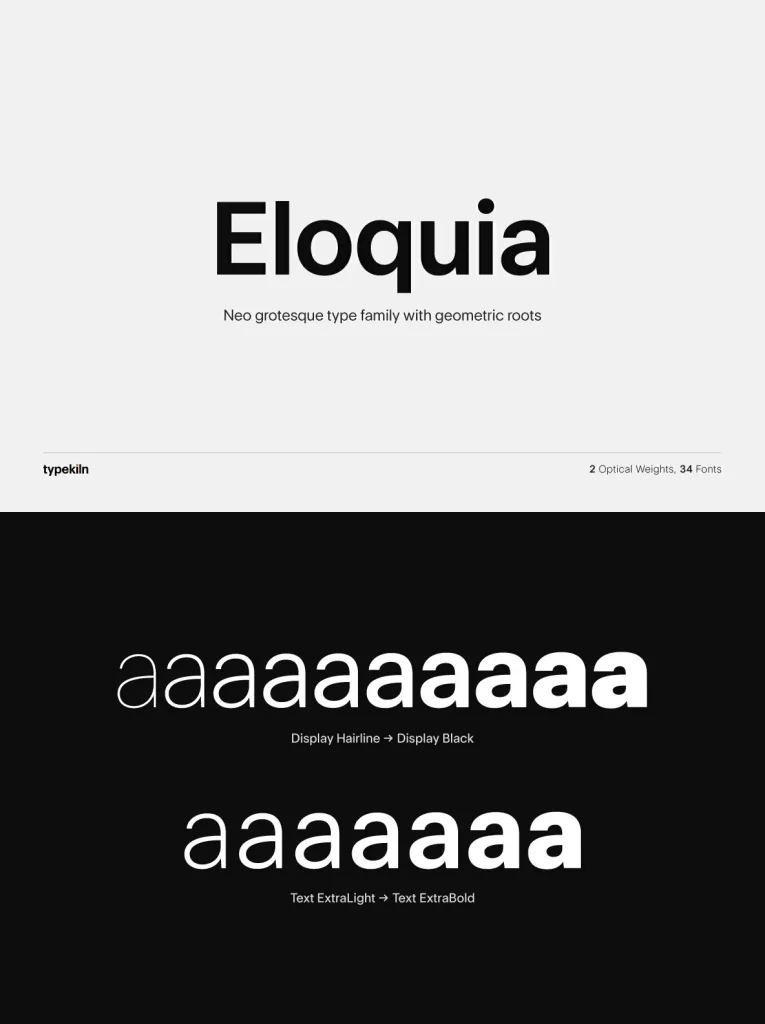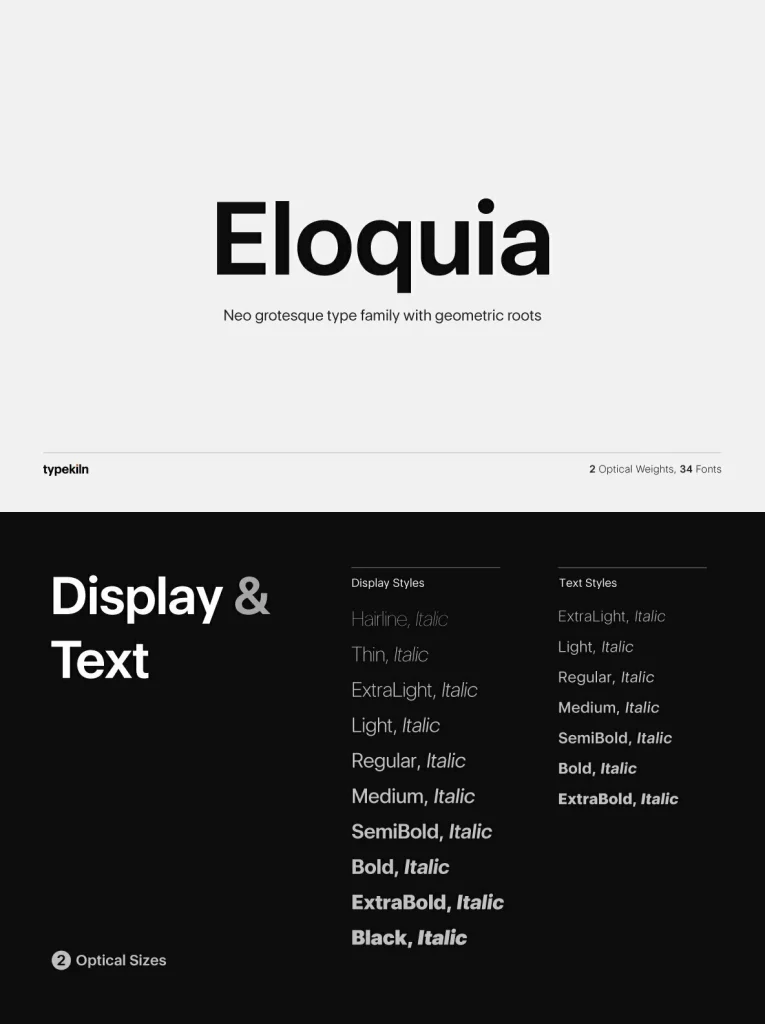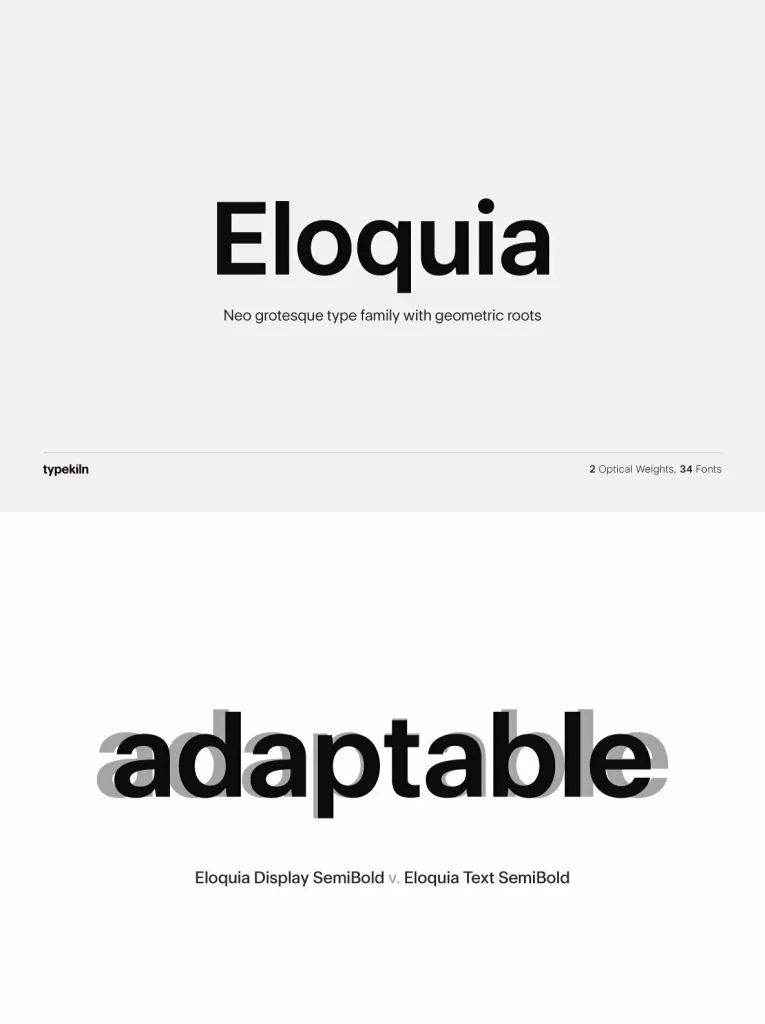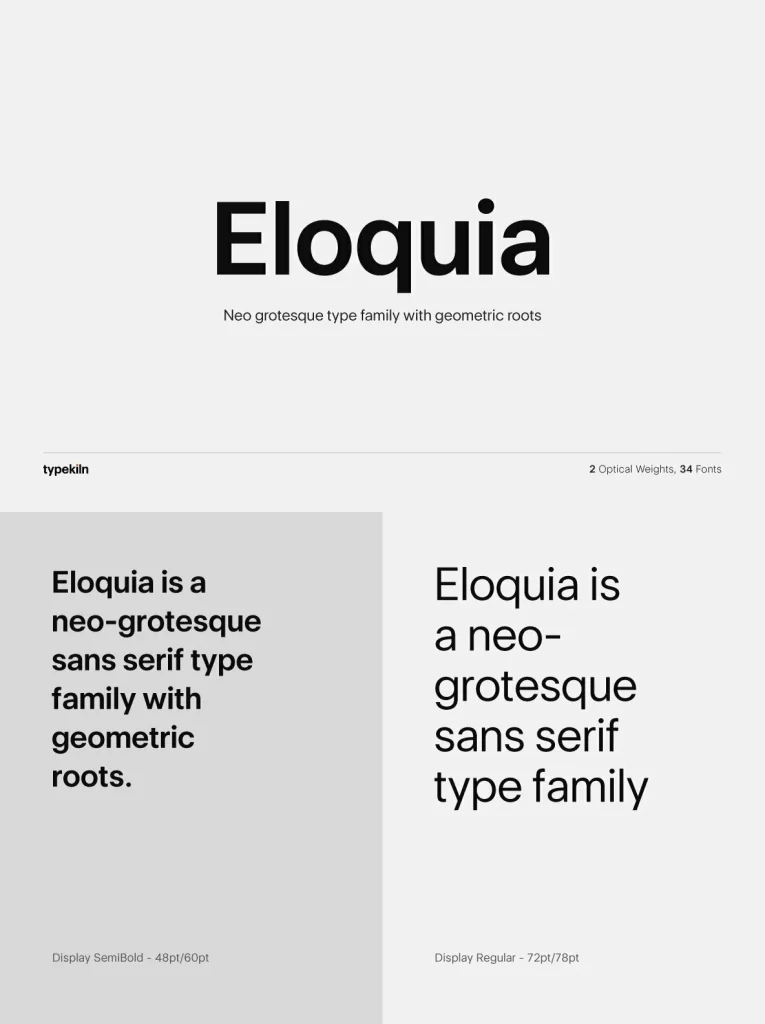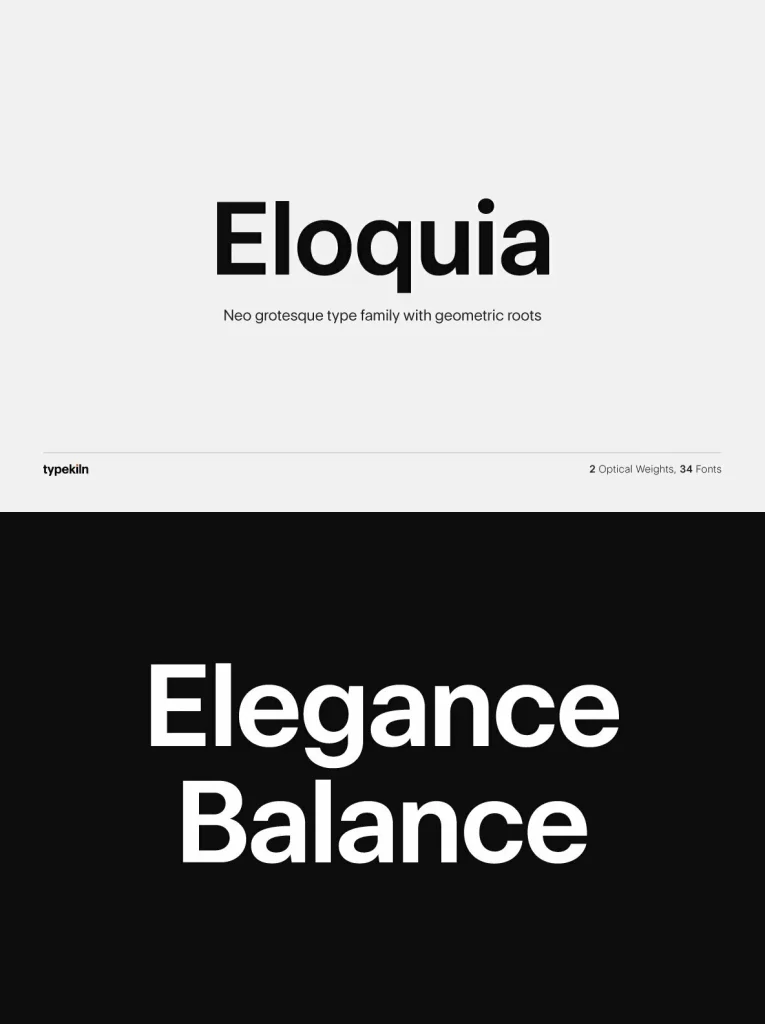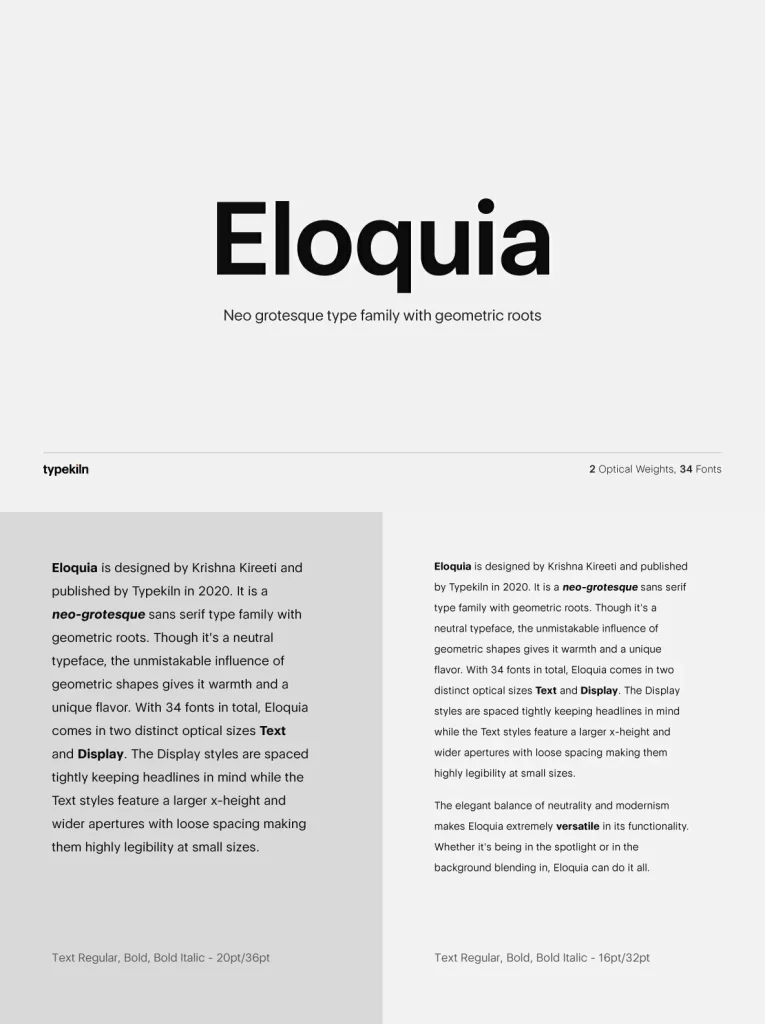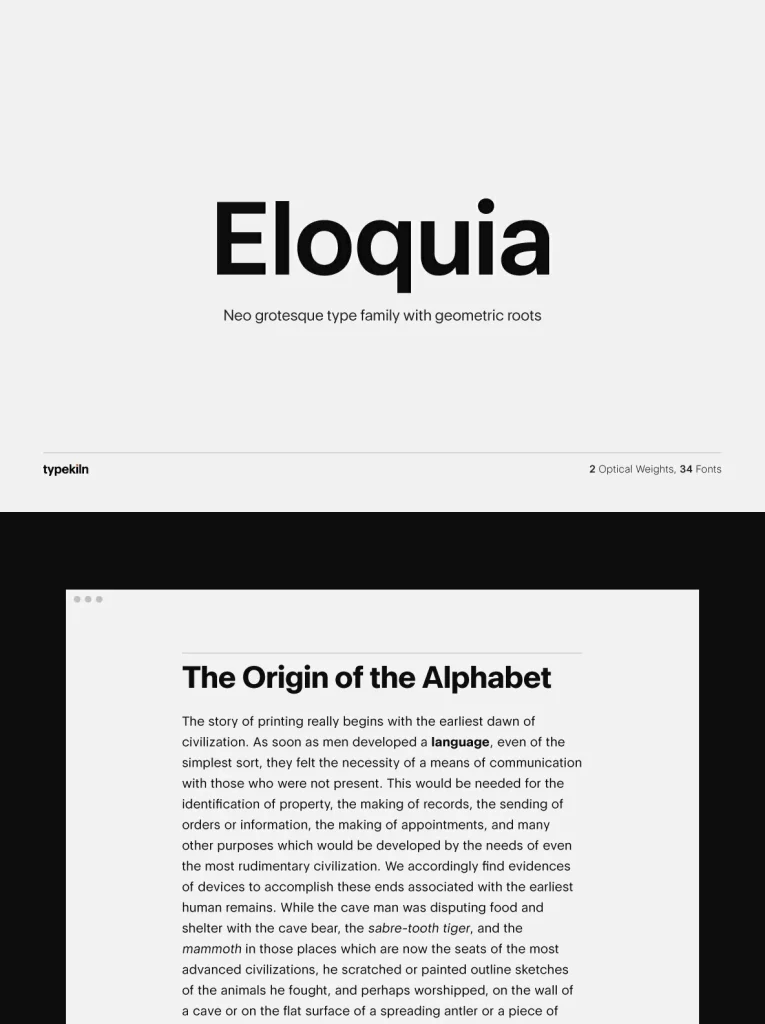
Eloquia Font
Eloquia — Neutral, Warm, and Precise
Eloquia is a neo-grotesque sans serif type family with geometric roots. It reads as neutral, yet the clear influence of geometric shapes adds warmth and a distinct flavor. With 34 fonts in total, Eloquia comes in two optical sizes: Text and Display. The Display styles use tight spacing for headlines. The Text styles feature a larger x-height, wider apertures, and looser spacing for high legibility at small sizes.
Eloquia balances neutrality and modernism, which makes it highly versatile in use. It can take the spotlight or sit quietly in the background and blend in. Eloquia supports more than 88+ languages, including all major Latin languages. The Eloquia Display Extra Bold and Eloquia Text Extra Light are completely free of charge.
OpenType Features
Small Caps
Capitals to Small Caps
Stylistic Alternates
Ligatures
Case Sensitive Forms
Superscripts
Subscripts
Numerators
Denominators
Fractions
Ordinals
Proportional Lining
Tabular Lining
Oldstyle Figures
Scientific Inferiors
Localised Forms
Historical Forms
Capital Spacing
and more